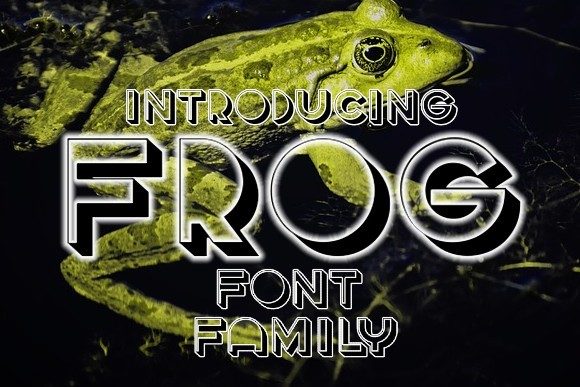
Immerse yourself in the enchanting world of Frog Font, a captivating display font that will ignite your creativity and leave a lasting impression on your designs. This 3D masterpiece was meticulously crafted by the talented vladimirnikolic, who poured his passion and expertise into every curve and stroke.
With Frog Font, you'll embark on an artistic journey filled with endless possibilities. Its bold and striking characters exude a modern and edgy vibe, perfect for crafting logos that demand attention. Unleash your imagination and let Frog Font elevate your brand to new heights.
Dive into a realm of customization with Frog Font's diverse range of variations. Play with different styles and effects to create logos that resonate with your unique vision. Whether you're a seasoned designer or just starting out, Frog Font empowers you to create designs that are both visually stunning and emotionally captivating.
Feel the rush of inspiration as Frog Font transforms your designs into works of art. Engage your audience with logos that ignite curiosity and leave an indelible mark on their minds. Embrace the power of Frog Font and watch as your ideas bloom into extraordinary creations.